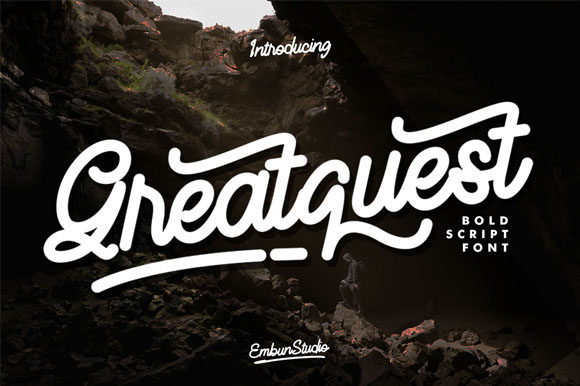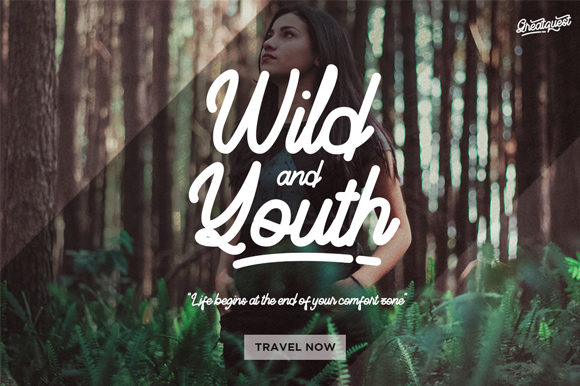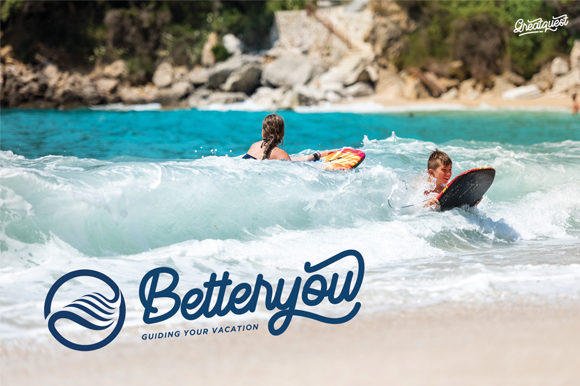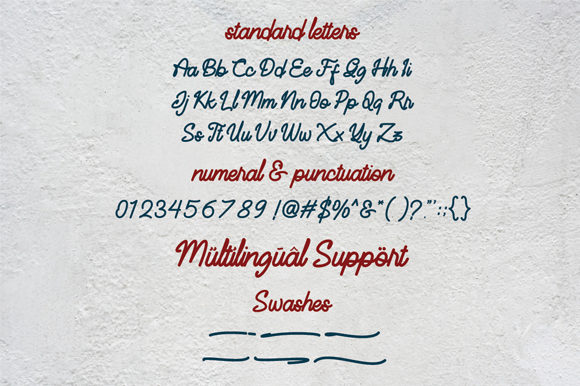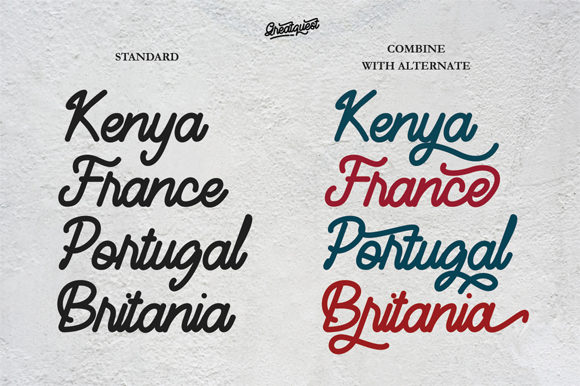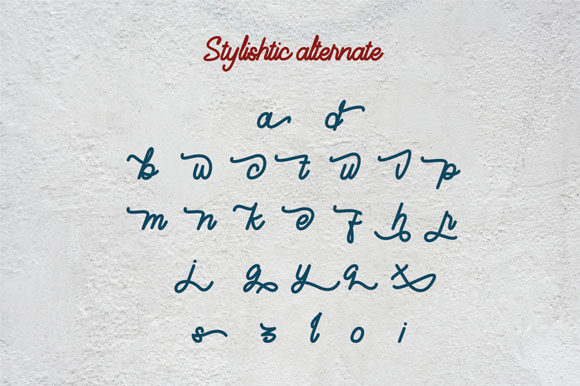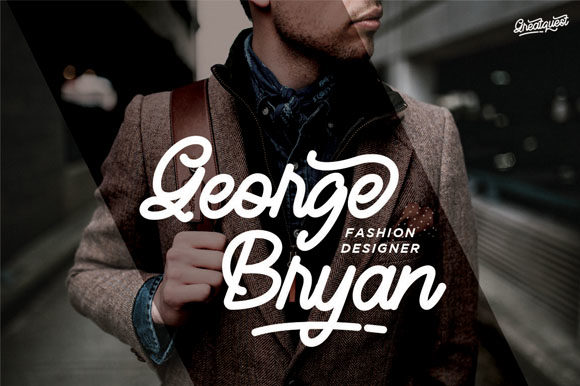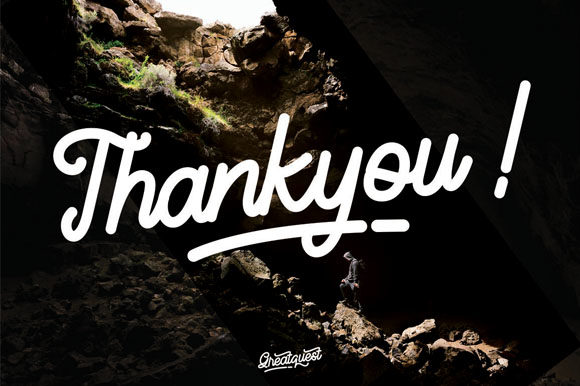
Greatquest Font
About Greatquest Font
Greatquest is a stunning script that will add an adventurous feel to your next design project. Get inspired by its bold style!